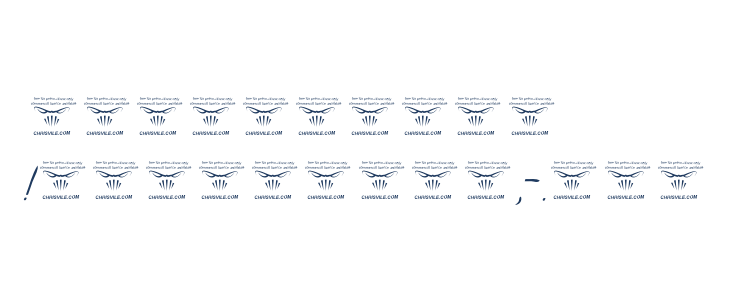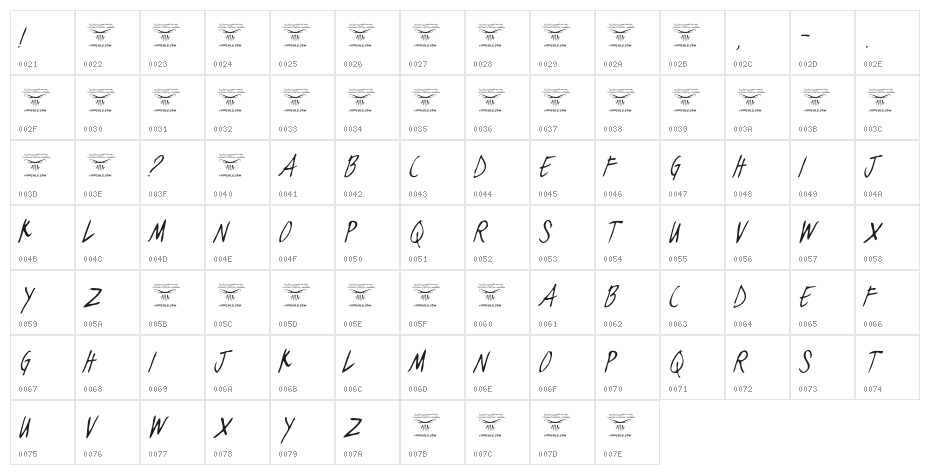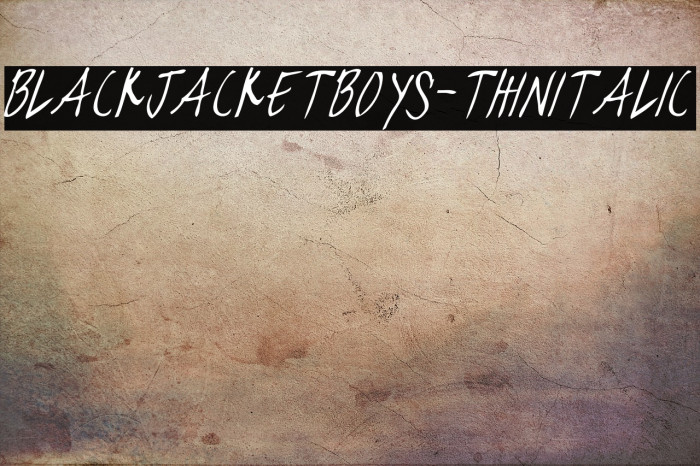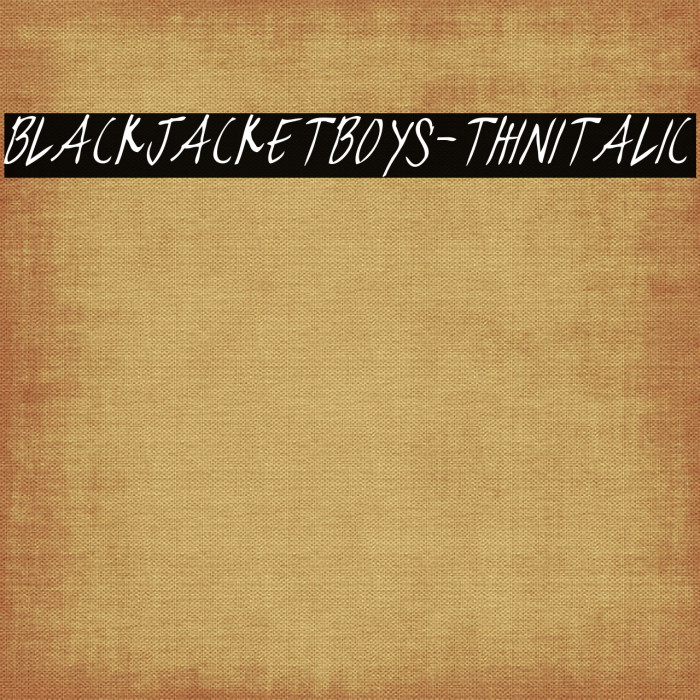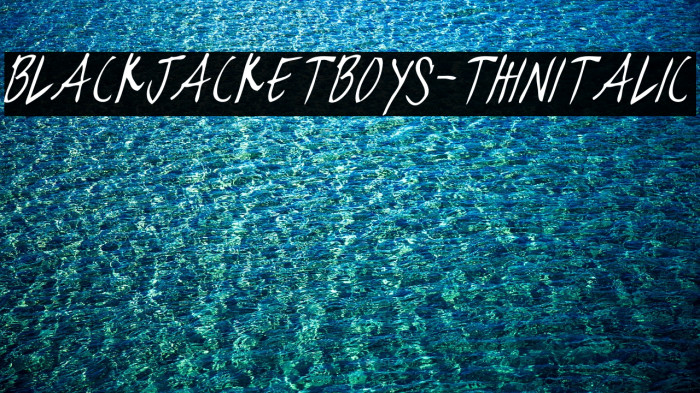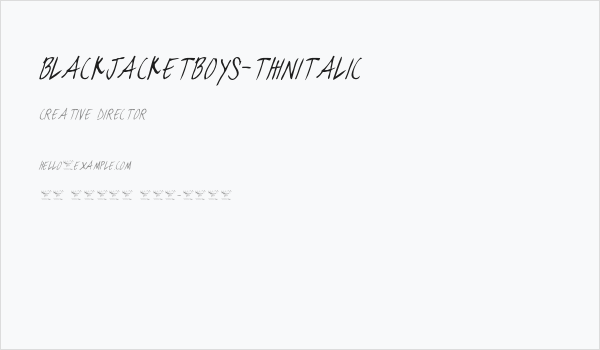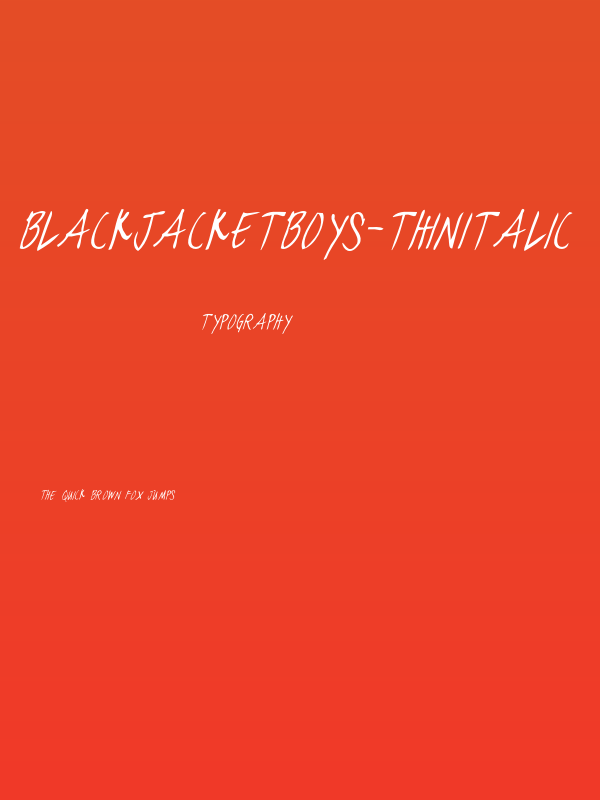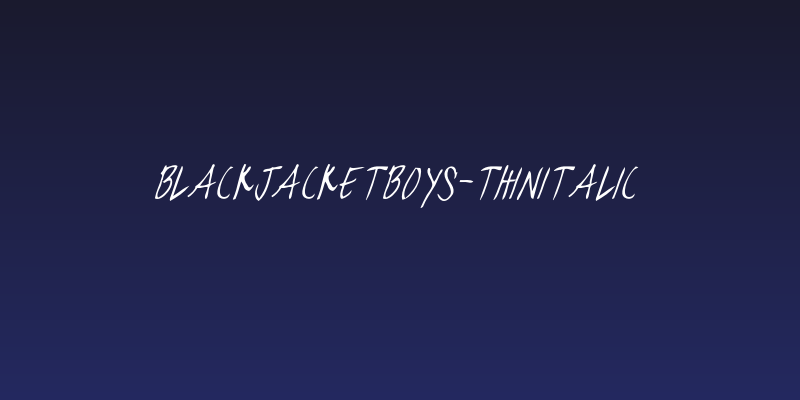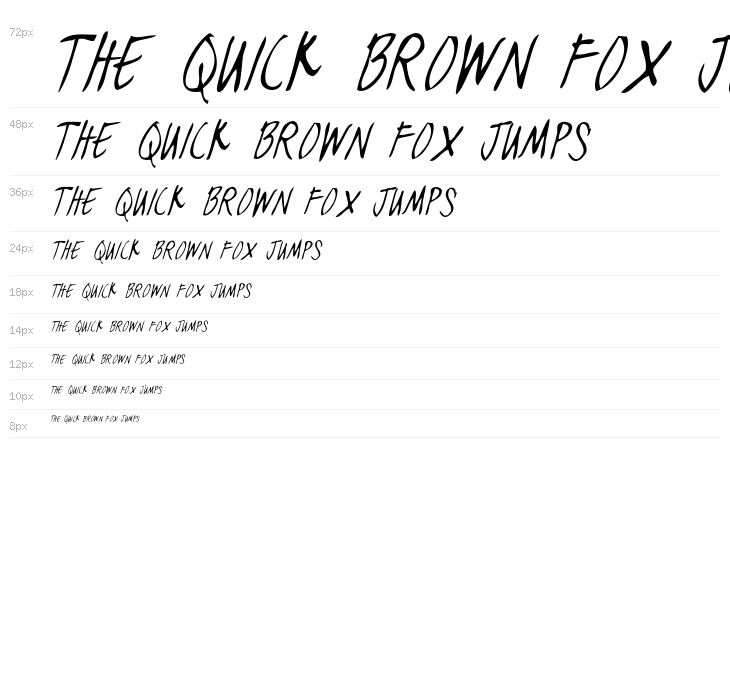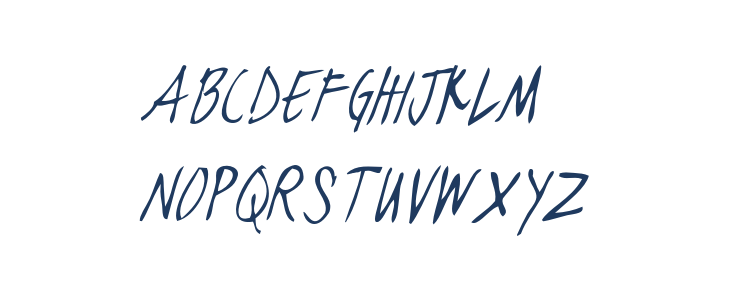
blackjacketboys-ThinItalic Font
blackjacketboys-ThinItalic Description
This font exhibits a dynamic and expressive style with a handwritten flair. The letters are slanted, giving a sense of motion and fluidity, characteristic of italic typefaces. The strokes are thin, yet they maintain a consistent flow, enhancing the elegant and casual appearance. The uppercase and lowercase letters are well-balanced, with a slight variation in height that adds to the informal charm. The font's overall design is reminiscent of personal handwriting, making it suitable for projects that require a personal touch. The spacing between characters is moderately tight, which helps maintain the continuity of the script-like appearance.
| Overall Style | Casual, Artistic |
| Proposed Projects | Ideal for personal invitations, greeting cards, creative branding, and artistic projects that require a personal and informal touch. |